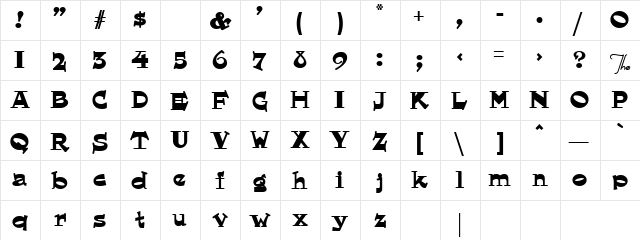
Mean Machine Regular
Design Context for Mean Machine Typeface
Mean Machine is a composed and adaptable typeface that performs quietly and consistently across a wide range of design contexts.